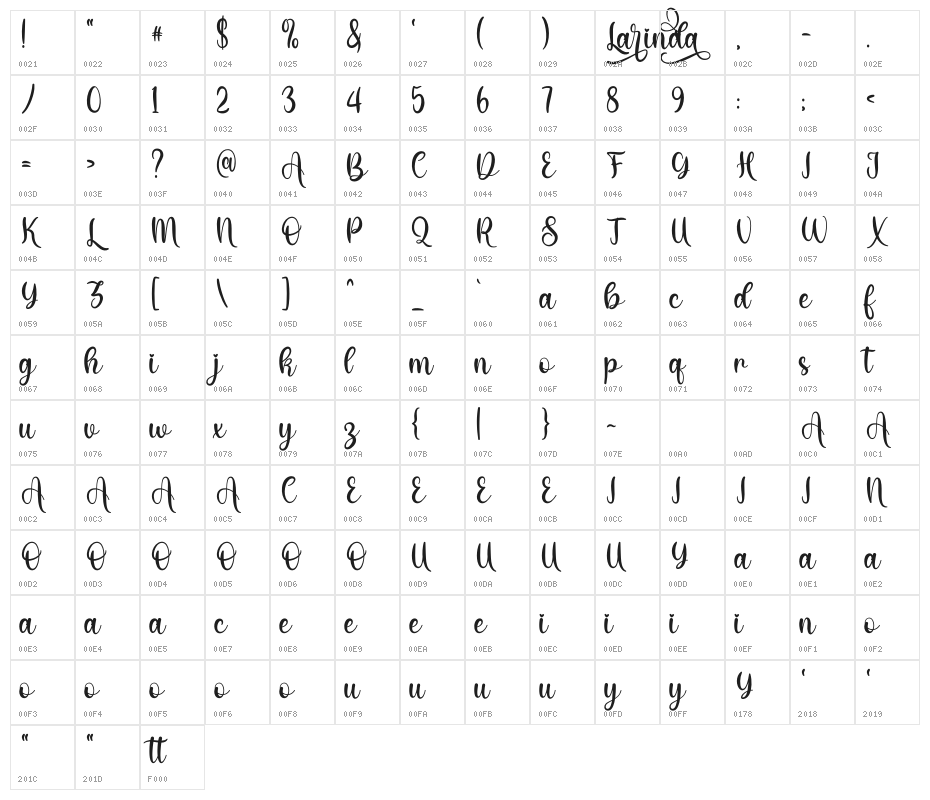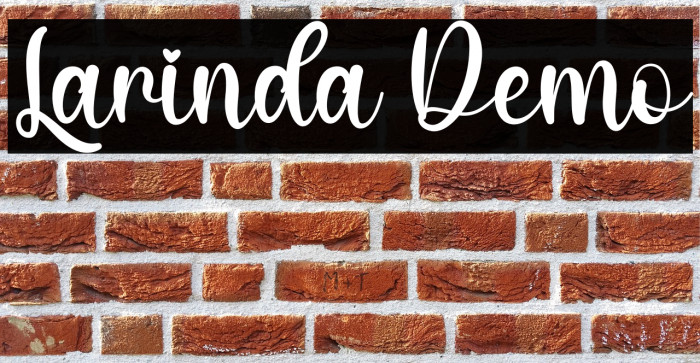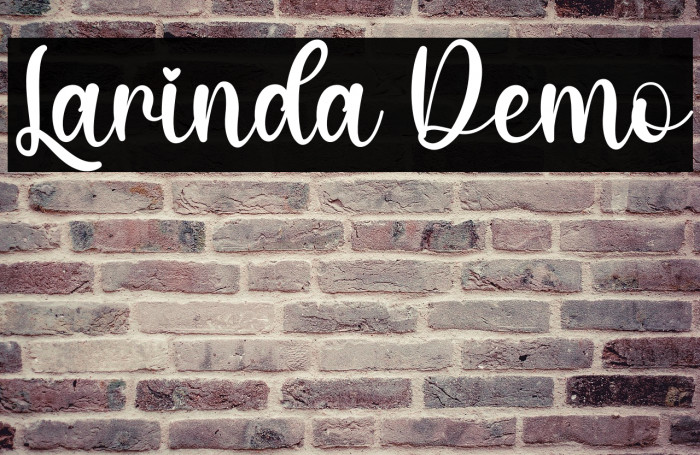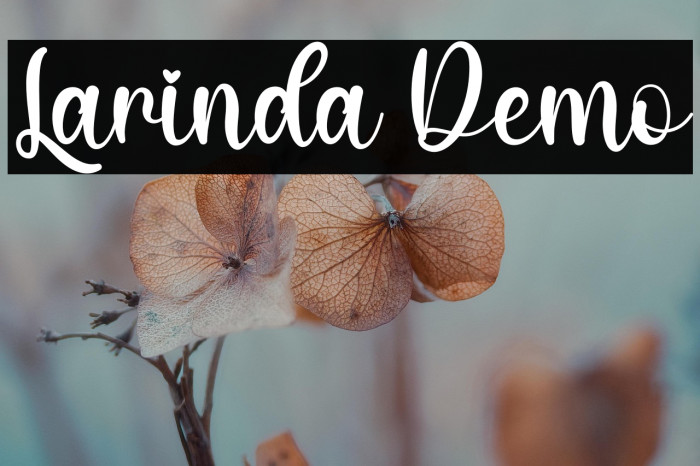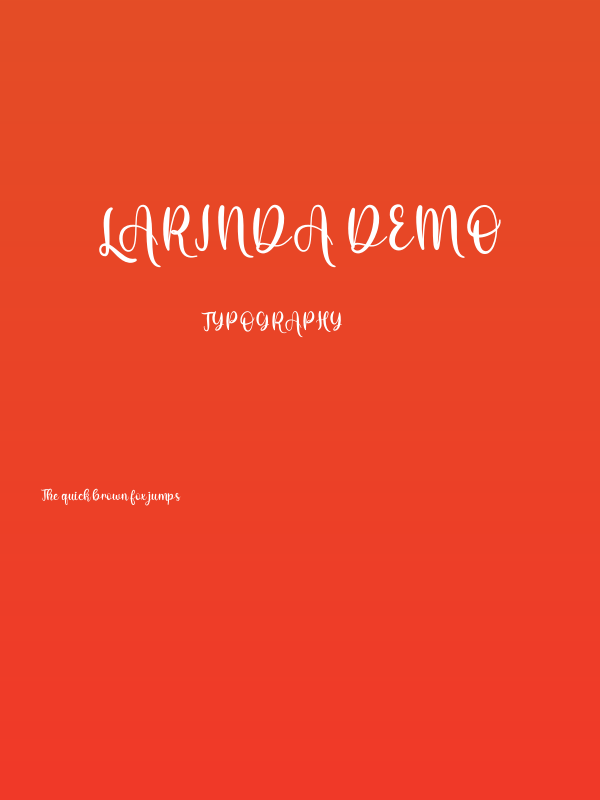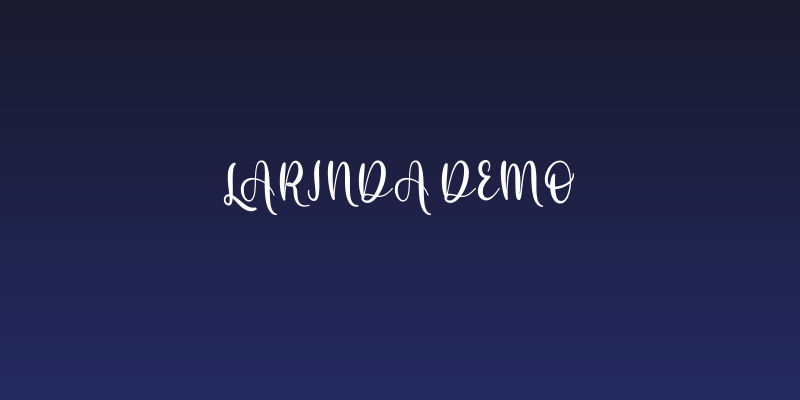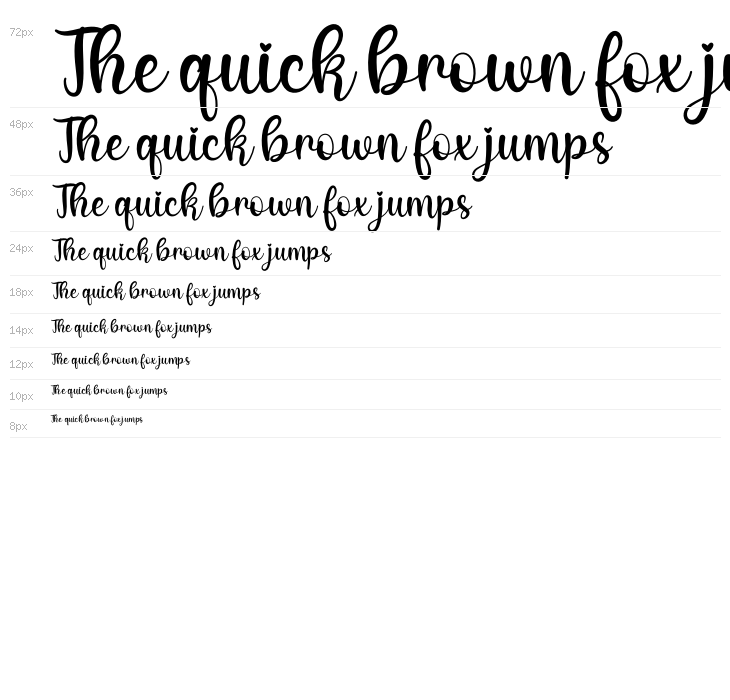
Larinda Demo Font
Larinda Demo Description
This font features a flowing, cursive style with elegant loops and swashes, giving it a handwritten appearance. The uppercase letters are bold and expressive, with distinctive flourishes that add a touch of sophistication. The lowercase letters maintain a consistent flow, with smooth connections between characters, enhancing readability while preserving the artistic flair. Numbers and special characters are designed to complement the overall style, offering a cohesive look across all elements. This font is ideal for projects that require a personal, artistic touch, such as invitations, greeting cards, or branding materials.
Use CaseHeadlines, Logos, Invitations
Proposed ProjectsIdeal for wedding invitations, greeting cards, personalized branding, and decorative signage.